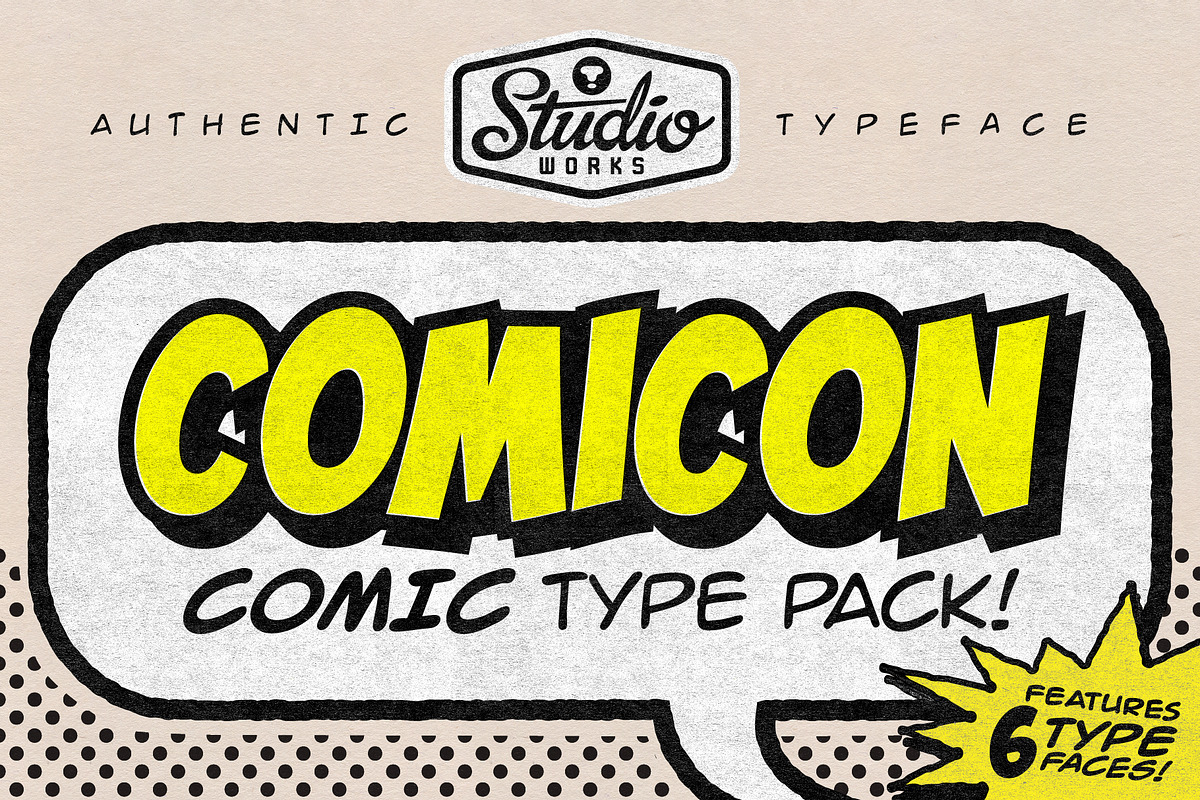
Step into the world of bold lines, dramatic tension, and hand-crafted energy with the Comicon Comic Type Pack — a full-spectrum typographic explosion designed for creators who demand more than just letters. This isn’t just a font bundle; it’s a creative revolution born from the raw, electrifying aesthetic of classic comic book art. Whether you’re crafting a splash-page headline, developing a branded comic series, or adding explosive flair to your next poster, Comicon delivers instant impact with every keystroke.
Bold Display Meets Dimensional Drama
At the heart of the Comicon bundle lies a bold display typeface that commands attention with its aggressive stroke weight and dynamic presence. Inspired by the hand-inked lettering of legendary comic artists from the 1930s to the 1980s, this font captures the raw energy of ink and paper — where every curve and line feels alive with intention.
But the real magic happens with the outlined dimensional complement. Perfect for when you need a word to jump off the page — literally. Use it for headlines, word balloons, or taglines that demand to be seen. The layered design creates a 3D-like effect without complexity, giving your text depth, movement, and a tactile presence that static fonts can’t match.
Four Full Dialogue Typefaces for Narrative Power
Comicon is more than a single style — it’s a complete storytelling toolkit. Included in the pack are four distinct dialogue typefaces, each crafted to bring a unique voice to your character’s words. Whether you’re mimicking old-school newsprint, creating a chaotic speech bubble, or setting a nostalgic tone, there’s a font that fits the moment.
Each dialogue style supports:
- Full uppercase and lowercase characters (A-Z, a-z) with stylistic alternates for visual variety
- Numbers (0-9) and punctuation to handle dialogue scripts and narrative formatting
- Standard glyphs and special symbols for full creative control
- Multilingual support in the Regular, Italic, Bold, and Bold Italic weights (ideal for international comic projects)
The result? Text that feels authentic, natural, and brimming with character — like it was drawn by hand on a battered drafting board.
Fully Equipped for Professional Workflow
Contextual Variety That Prevents Repetition
One of the most brilliant features? The dynamic alternation system. With Comicon Regular (Italic, Bold, Bold Italic) variations, letter pairs automatically shift between upper and lower case to avoid visual monotony. This isn’t random — it’s intentional. It mirrors how comic artists naturally vary lettering in real-world layouts, creating a sense of rhythm, spontaneity, and handcrafted authenticity.
Never again will your text feel robotic or repetitive. With Comicon, every line reads like it was drawn by a talented, human hand — with intention, movement, and soul.
Creative Applications That Demand Energy and Style
Comicon isn’t for quiet design. It’s for projects that need to break through the noise. Use it to:
- Design comic book titles and cover art with bold, stylized typography that captures the essence of the genre.
- Build strong branding for entertainment studios, animation teams, or indie comic publishers.
- Create event posters for comic cons, gaming expos, or pop culture festivals.
- Enhance social media content with dramatic quotes, character intros, and viral-style text graphics.
- Develop merchandise like T-shirts, mugs, or posters with instant visual identity.
- Support multilingual storytelling with reliable character support across European, Asian, and African language scripts.
Transform Your Projects with the Voice of the Comic Age
The Comicon Comic Type Pack isn’t a download. It’s a creative toolset that arms you with the visual language of a bygone era — but with modern precision. It’s for artists, designers, writers, and storytellers who want to speak with authority, flair, and unforgettable presence.